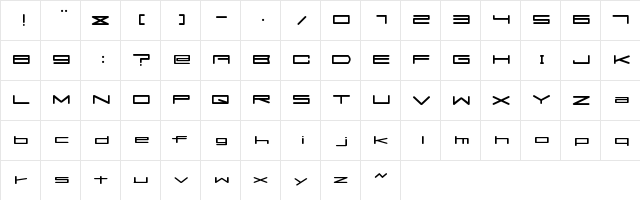
FLATS Medium
Design Context for FLATS Typeface
FLATS is a composed and adaptable typeface that performs quietly and consistently across a wide range of design contexts.